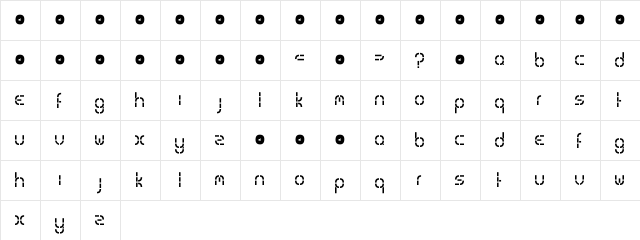
special k. normal
Design Context for special k. Typeface
special k. is a composed and adaptable typeface that performs quietly and consistently across a wide range of design contexts.